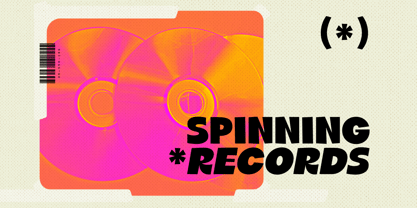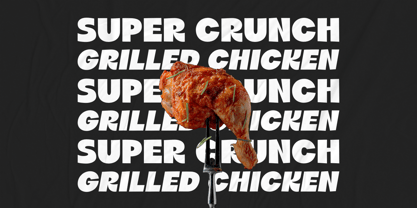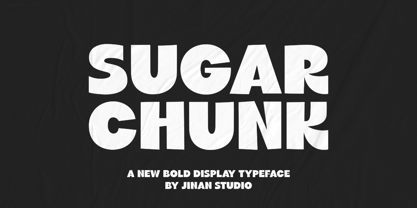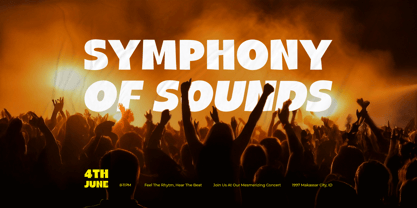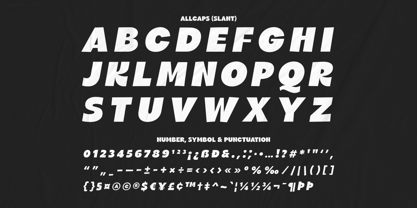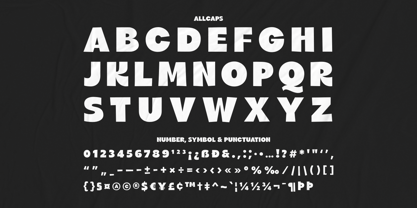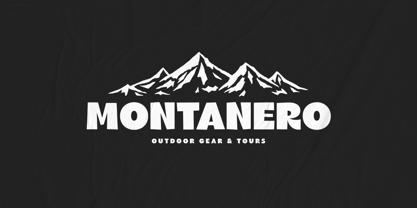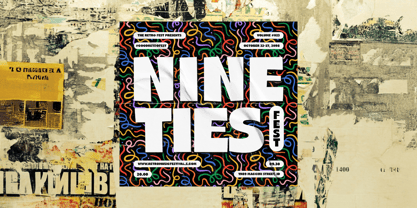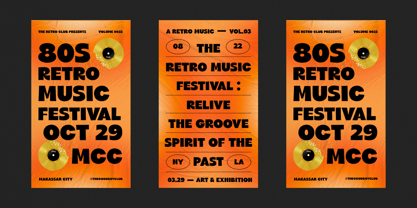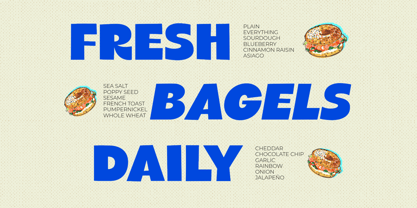
Sugar Chunk
by Jinan Studio
The Sugar Chunk Font Family was designed by Andi Syahdang, Ainun Jinan and published by Jinan Studio. Sugar Chunk contains 2 styles and family package options. More about this family
Sugar Chunk is a bold and playful display typeface that bursts with retro charm and chunky personality. Its heavy, blocky letterforms and bold, tapered cuts give it a strong, confident presence — perfect for attention-grabbing headlines, logos, posters, and packaging. Whether you’re aiming for a nostalgic 70s vibe or a modern quirky look, Sugar Chunk adds a delicious dose of character to any project. Features Allcaps Number, symbol, and punctuation Multilingual Support Slant Version